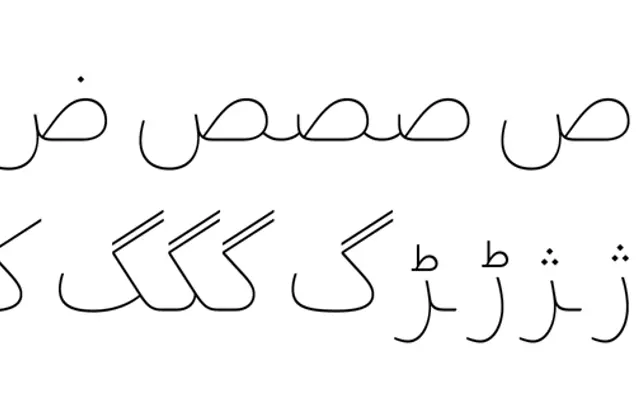
Brando Arabic
Bold Monday · Khajag Apelian, Wael Morcos, Mike Abbink · 2019
An Arabic companion to Brando in eight weights, designed by Khajag Apelian and Wael Morcos to work alongside both Brando and Brando Sans across display and body copy settings.
Following Naskh script conventions, Brando Arabic mirrors the constructed-yet-organic character of Mike Abbink's Latin original by mapping slab detailing onto features inherent to the Arabic script, such as the Dal tail, the Hah's first stroke and the Kaf. Eight weights run from Hairline to Black, with increasing thick-thin contrast across the range, supporting Arabic, Persian and Urdu alongside an extensive Latin script coverage. The family won a Communication Arts Award of Excellence in 2018.
Brando Arabic is an Arabic companion to the Brando slab serif, following Naskh script conventions while echoing the slab detailing of the Latin original through naturally occurring Arabic typographic features such as the Dal tail and Yeh stroke.